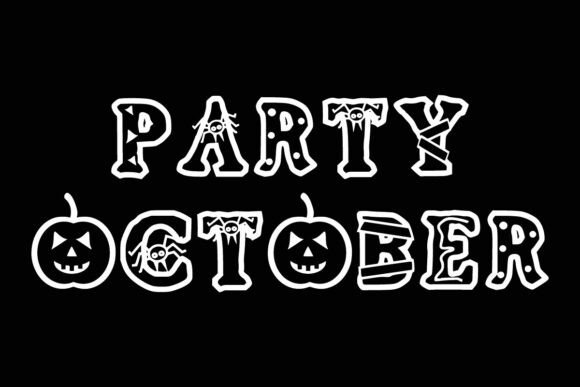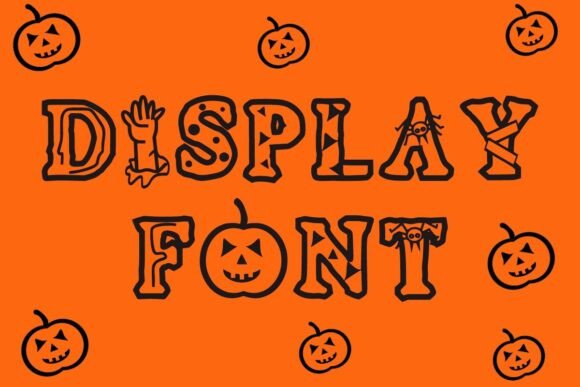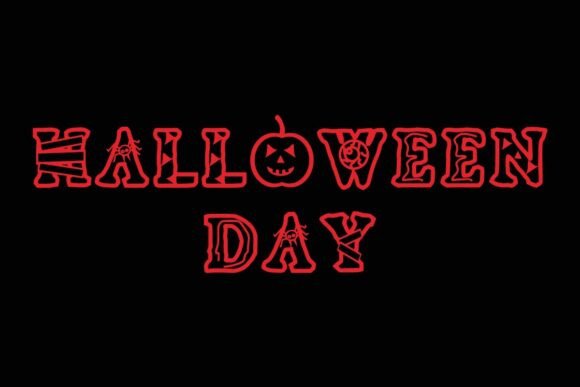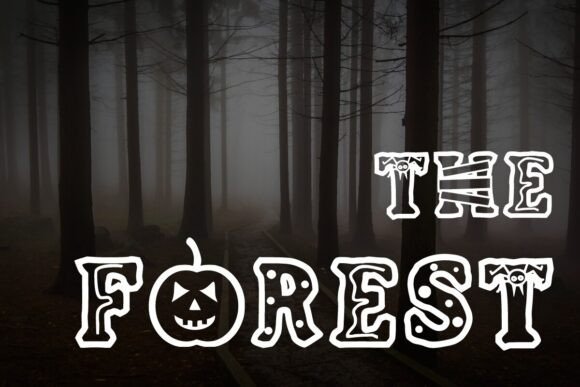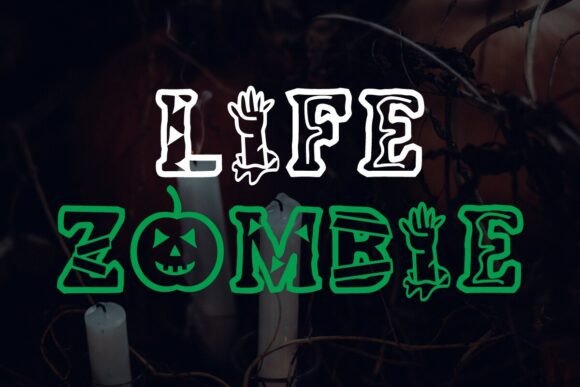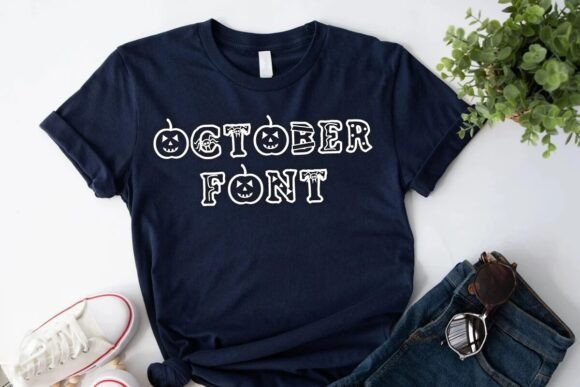
Introduction to October Amazing Font
As the crisp autumn air sets in and the leaves begin to change colors, I find myself drawn to the eerie and enchanting world of Halloween. The perfect storm of creativity and thrill has struck, and I’m eager to dive into a new project that captures the essence of this spooky season. Whether it’s a blog post, logo, or invitation, I know that the right font can make all the difference in setting the tone and atmosphere.
That’s where the October Amazing Font comes in – a fun and scary display font that’s sure to cast a spell on your creative project. With its versatility and high-quality design, this font is a valuable resource for designers looking to add a touch of Halloween magic to their work.
From free downloads to high-end branding, the October Amazing Font is a design must-have for anyone looking to create something truly special this season.
Key Features of October Amazing Font
- High-quality font with a unique, creative design perfect for various projects.
- Features a transparent background for seamless integration with any design.
- Perfect for designers working on a creative project, offering a stylish and modern look.
- Includes a range of characters and glyphs to support various languages.
- Designed with a high resolution of 300 DPI for crisp and clear text display.
- Ideal design resource for web designers, graphic designers, and digital artists.
Honest Review: October Amazing Font
I recently stumbled upon the October Amazing Font, and I have to say, it’s a great addition to any design resource collection. The high quality of this font makes it perfect for any creative project that requires a unique touch.
- ✨ High-quality design: The font is well-designed and has a professional look to it.
- ✨ Transparent background: This makes it easy to use the font in a variety of design contexts.
However, I do have a few minor complaints:
- ⚠️ Limited character set: The font only includes a limited set of characters, which may not be suitable for more complex design projects.
- ⚠️ Not ideal for small text: The font is best used for headings or titles, as the characters can become difficult to read at smaller sizes.
Overall, I’m impressed with the October Amazing Font, and I think it’s a great addition to any design resource collection. While it may have some limitations, its high quality and unique design make it a great choice for many creative projects.
For the best results, use the October Amazing Font in conjunction with high-quality images and graphics. Experiment with different font sizes, colors, and arrangements to create a unique and eye-catching design. You can also use the font in combination with other design resources to create a cohesive and professional look.
The October Amazing Font is ideal for a variety of creative projects, including: social media graphics, blog posts, presentations, and marketing materials. Its high-quality design and transparent background make it perfect for overlaying text on images or videos, creating a dynamic and engaging visual effect.